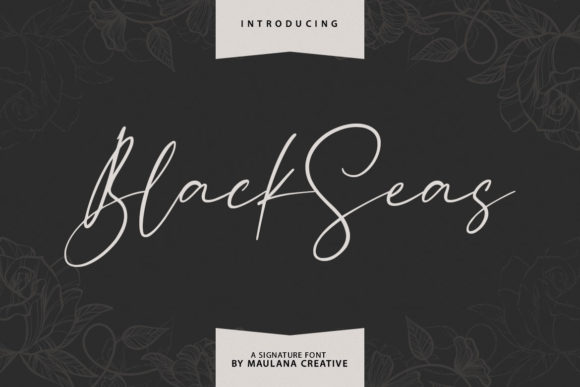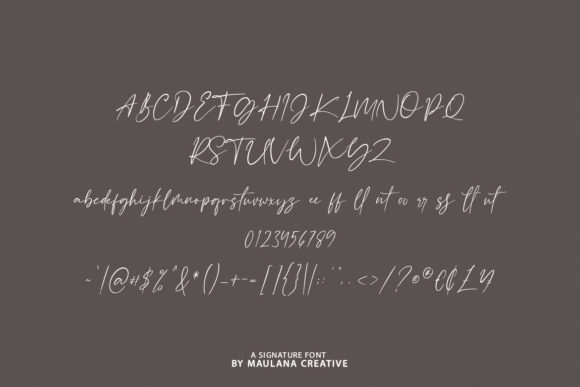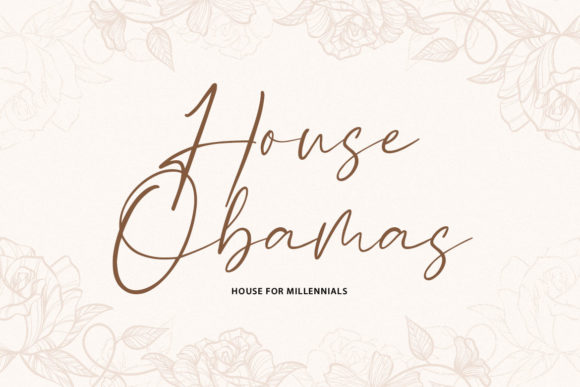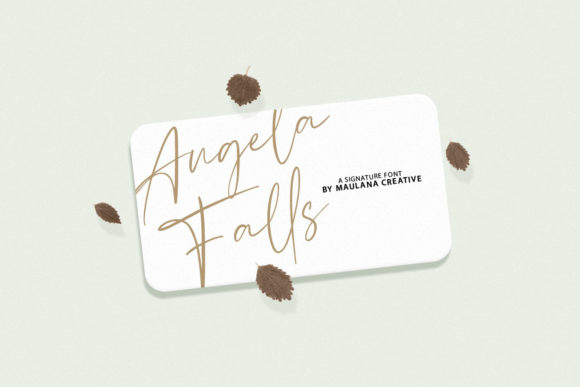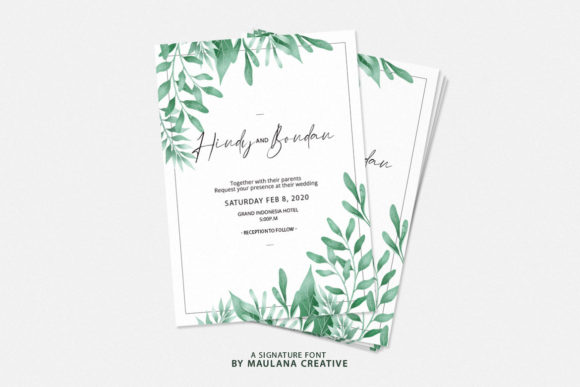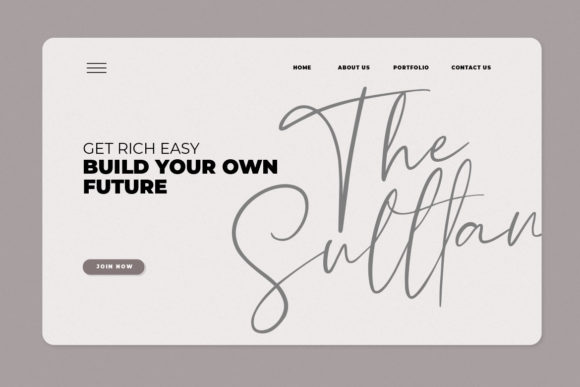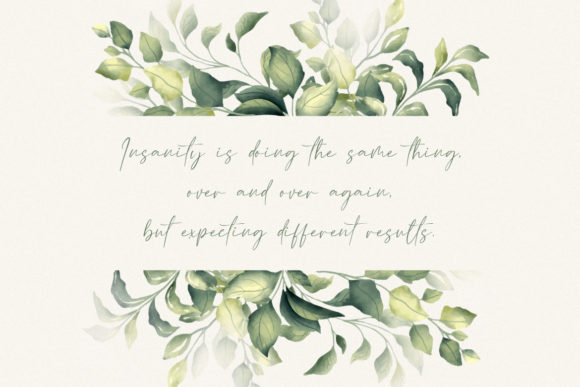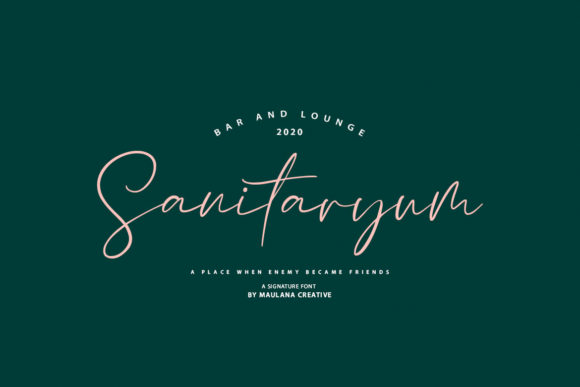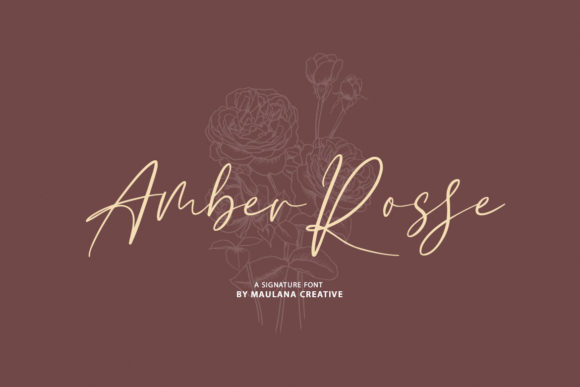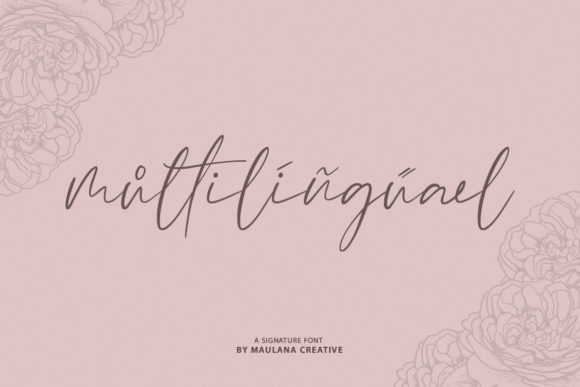
Blackseas Font
About Blackseas Font
Blackseas is a gorgeous and modern script font that will give your designs a handcrafted and authentic feel. Fall in love with its modern charm!